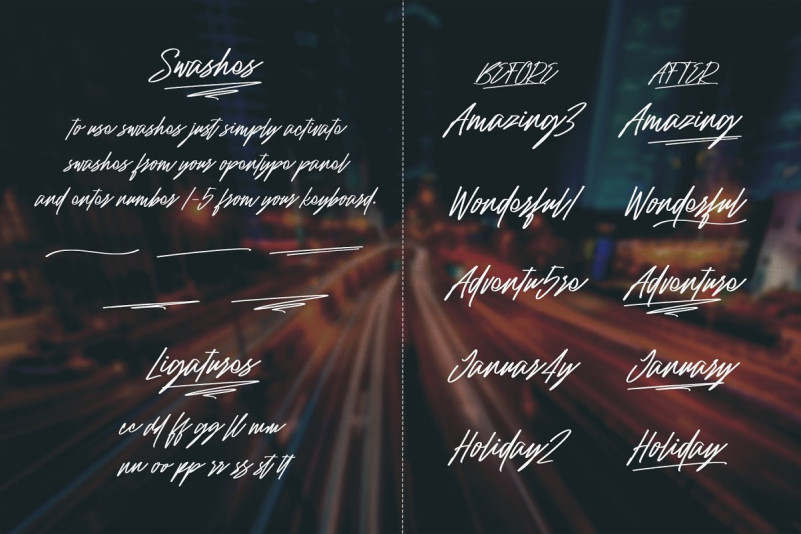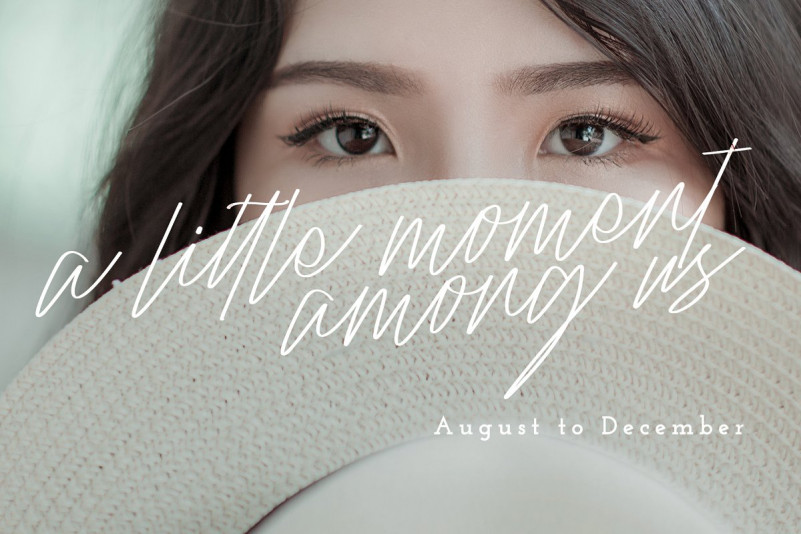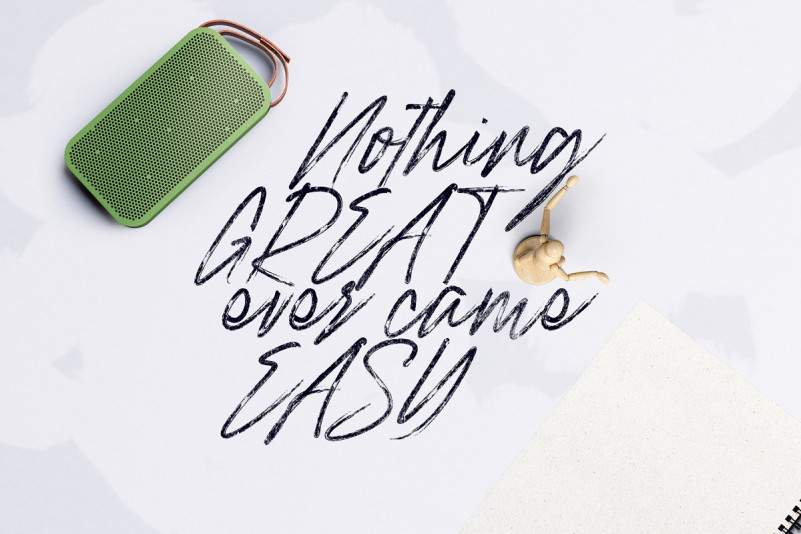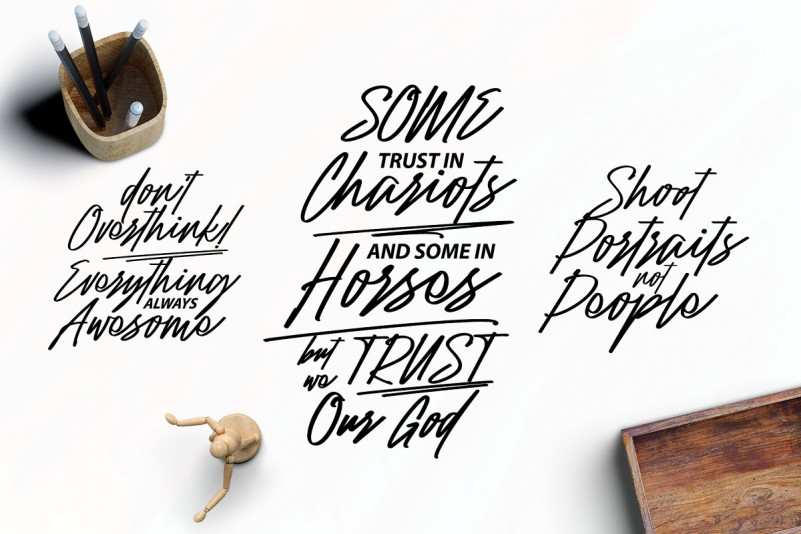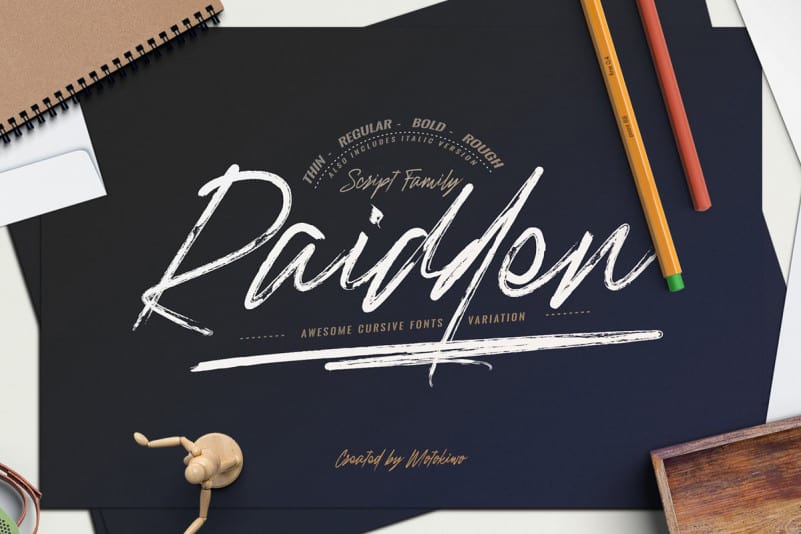
Raidden Script Font Family
A family of modern script font. A new fresh & modern script with a handmade calligraphy style, decorative characters and a dancing baseline. Introducing Raidden Script Font Family! It is designed and shared by Motokiwo. It’s a cursive script font family with three weight clean strokes and also a rough version. With these variation, it’s easy to use Raidden for different project type and style. The clean is elegant and the rough is awesome, better paired with ligatures and also swashes.